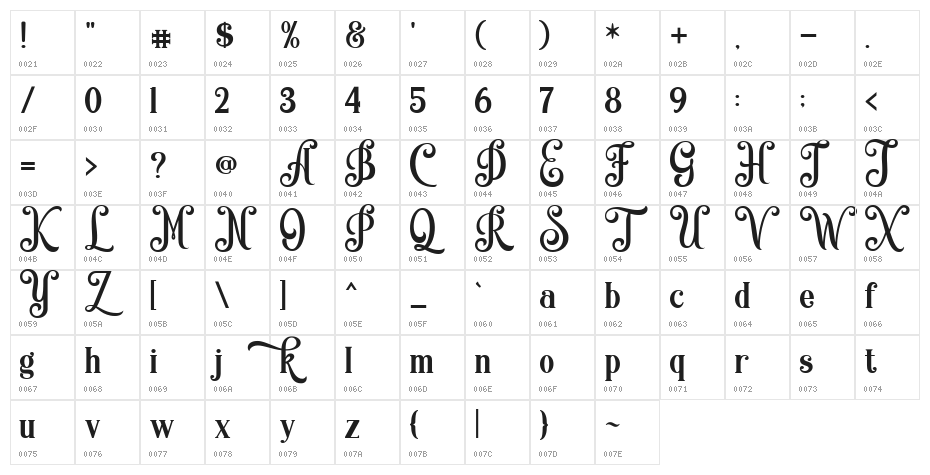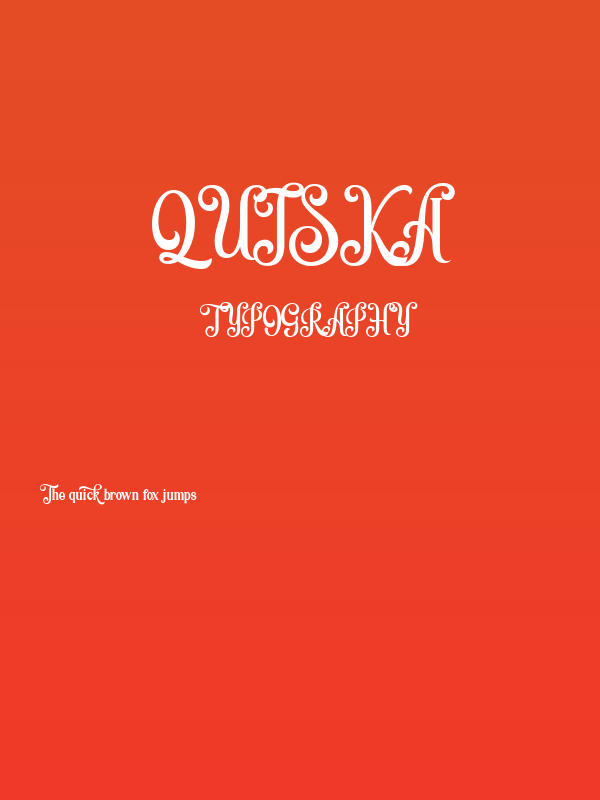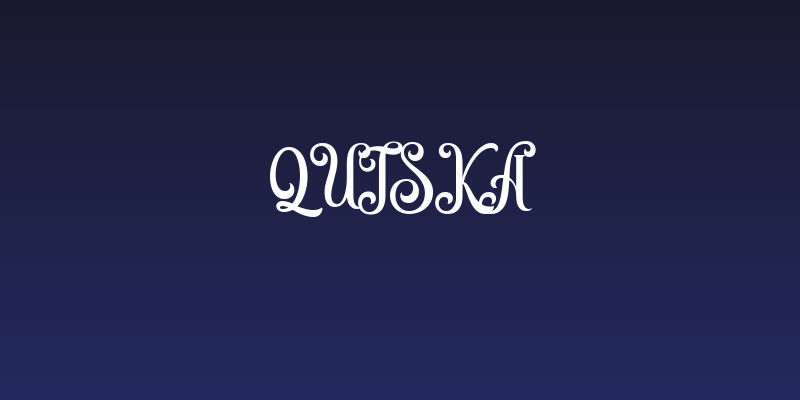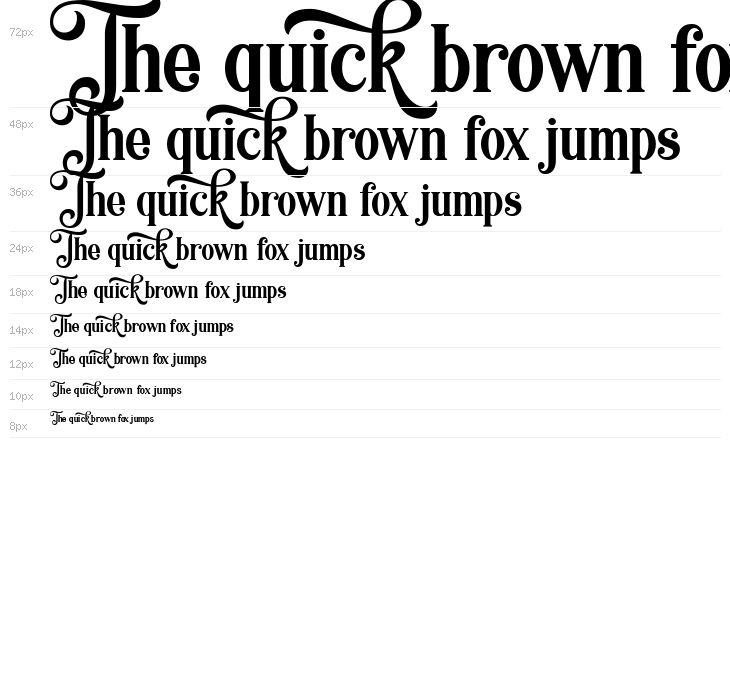
Quiska Font
Quiska Description
This font features an elegant and decorative style with intricate curls and loops in the uppercase letters, giving it a whimsical and artistic flair. The lowercase letters are bold and more straightforward, providing a strong contrast to the ornate uppercase. The numbers are bold and clear, ensuring readability. Special characters maintain the decorative theme, adding a unique touch to punctuation marks. The overall design is eye-catching and suitable for creative projects that require a touch of sophistication and playfulness.
Proposed ProjectsIdeal for wedding invitations, greeting cards, branding, and artistic posters.